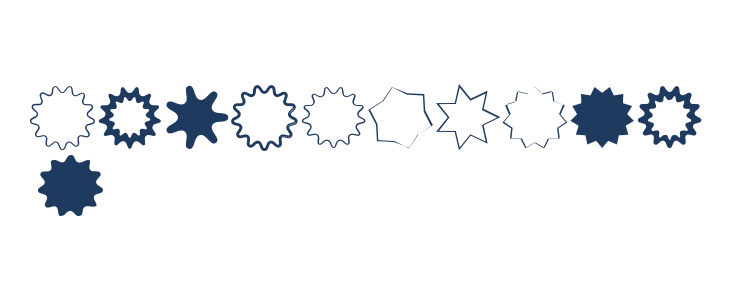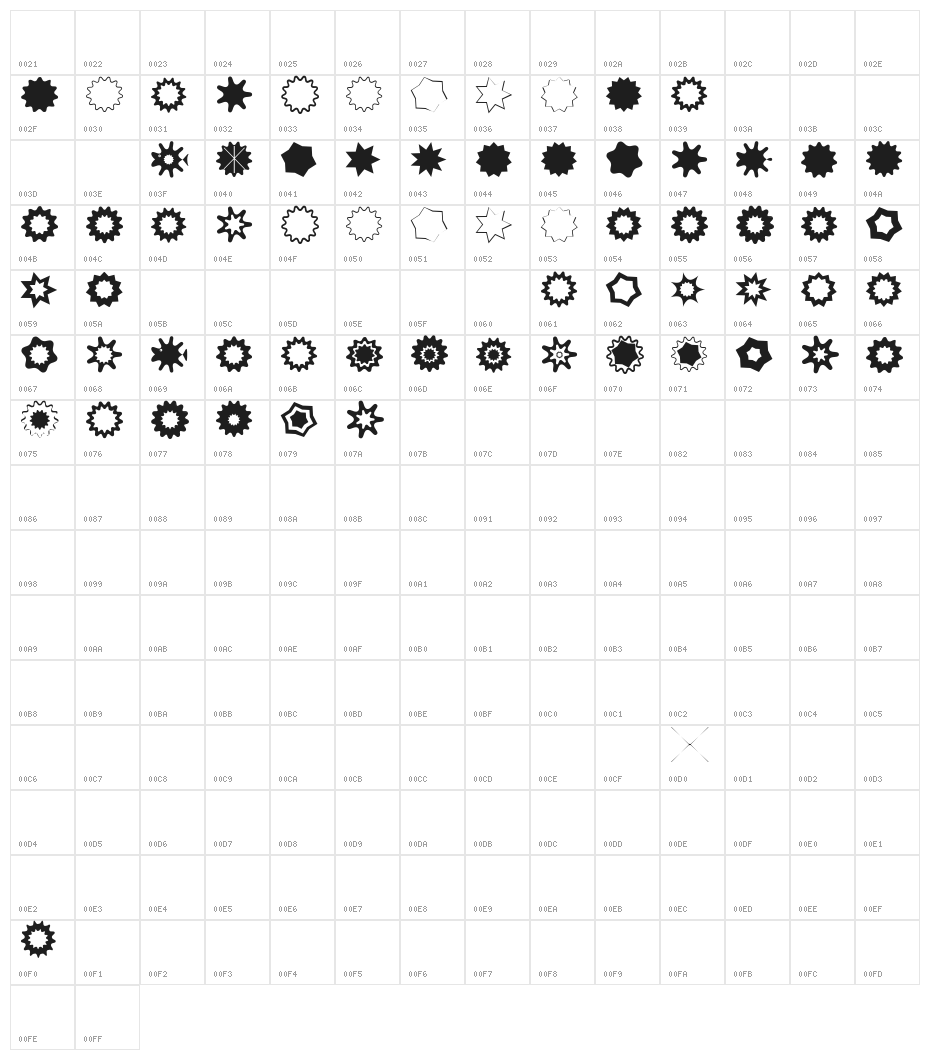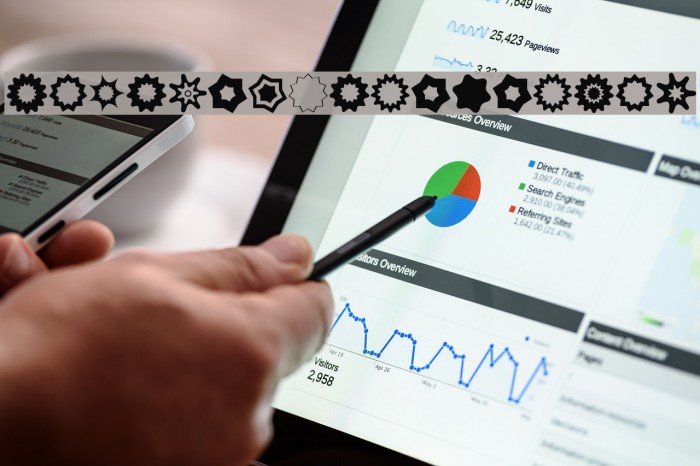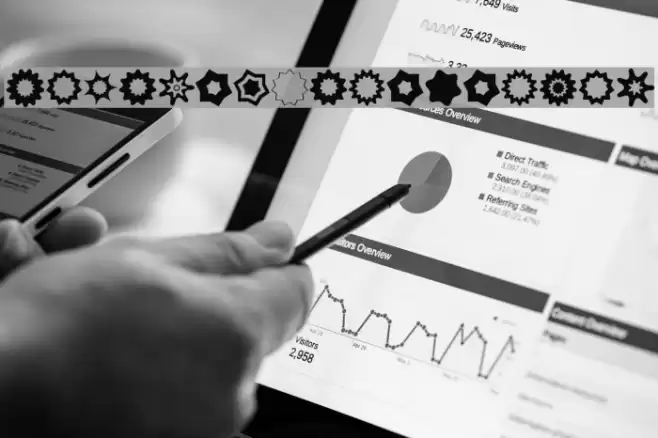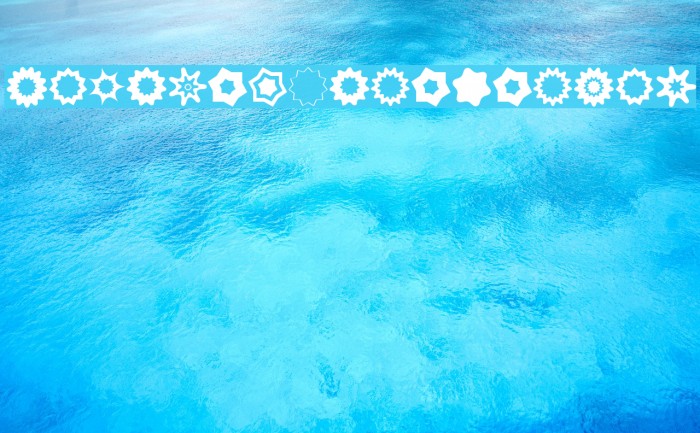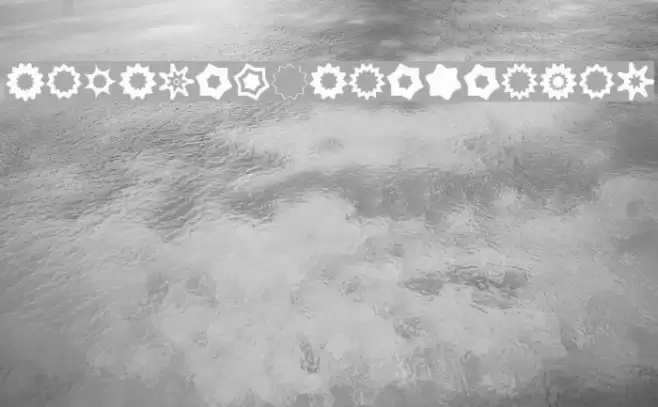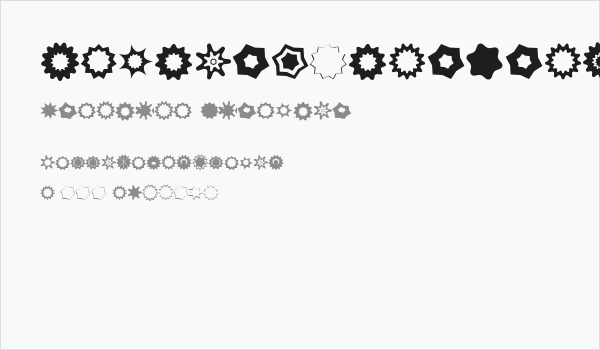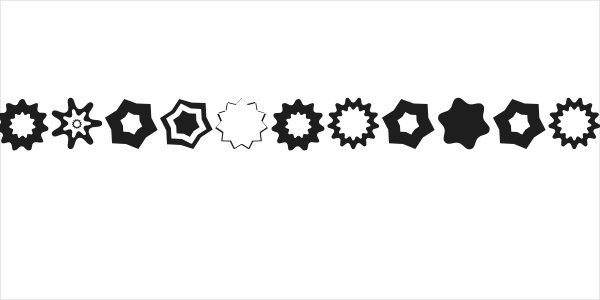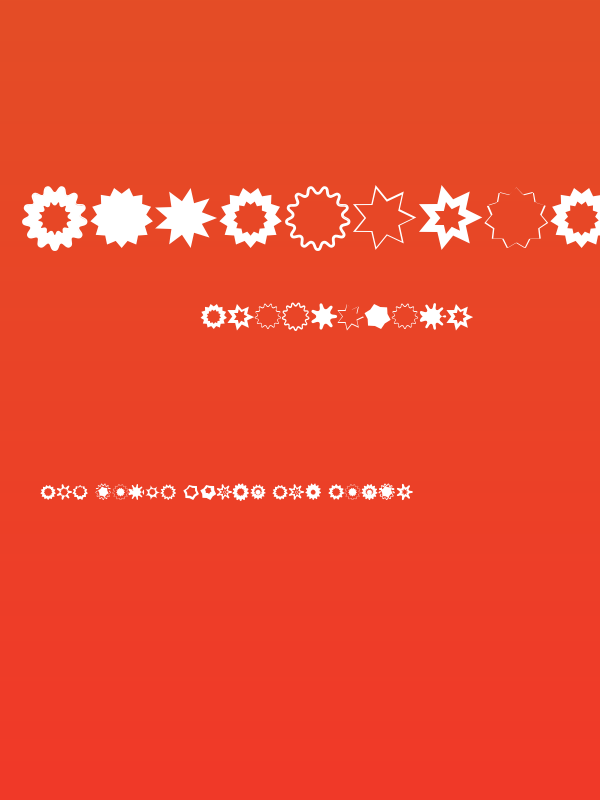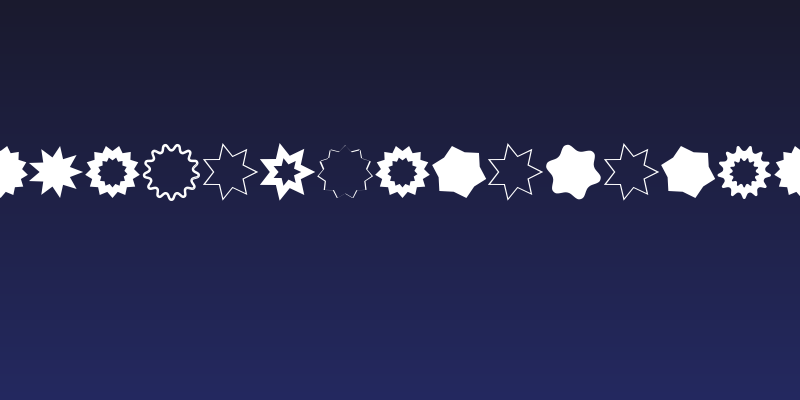
VectoryStarFrames Font
VectoryStarFrames Description
A collection of vector starburst and cog-like frame shapes, featuring a variety of spiked, wavy, and geometric outlines in both solid and outline styles. The set includes diverse forms with different numbers of points and edge treatments, suitable for decorative or labeling purposes.
| Use Case | Frames, badges, decorative accents, callouts. |